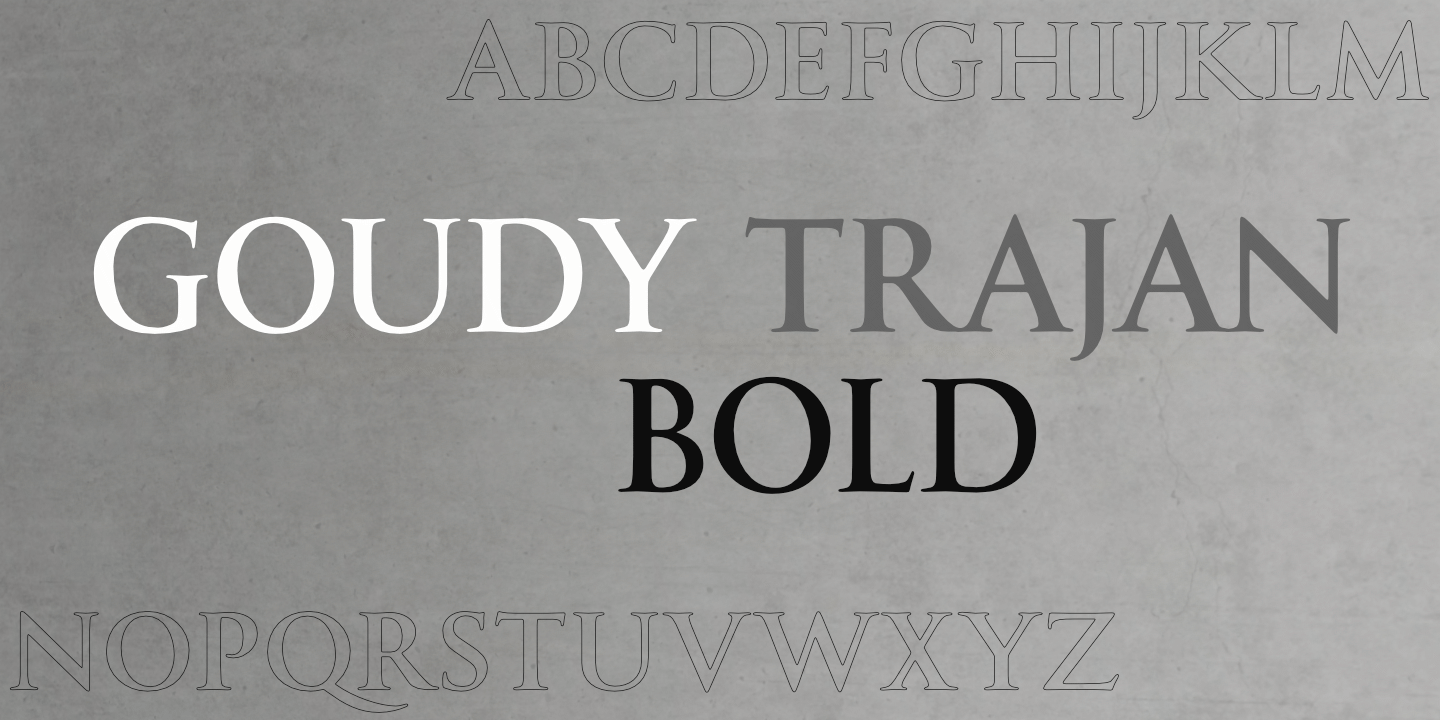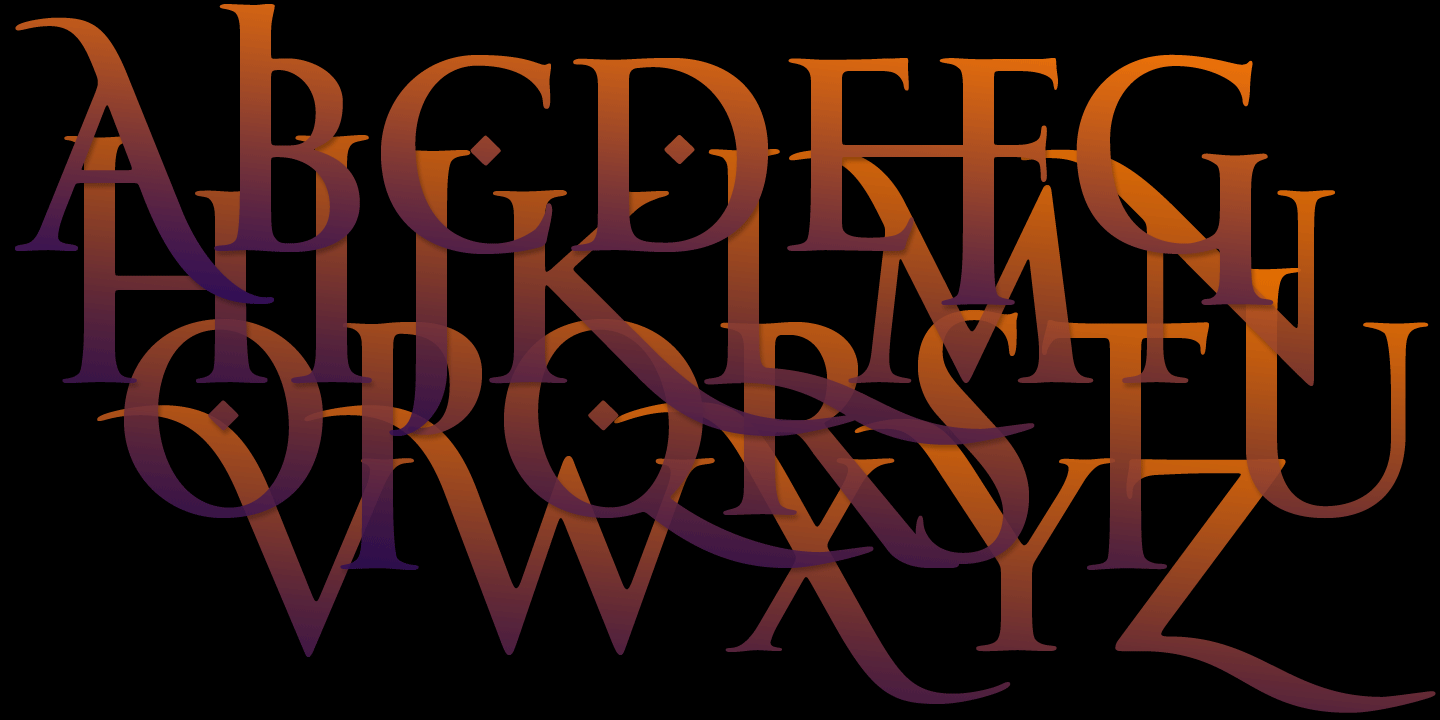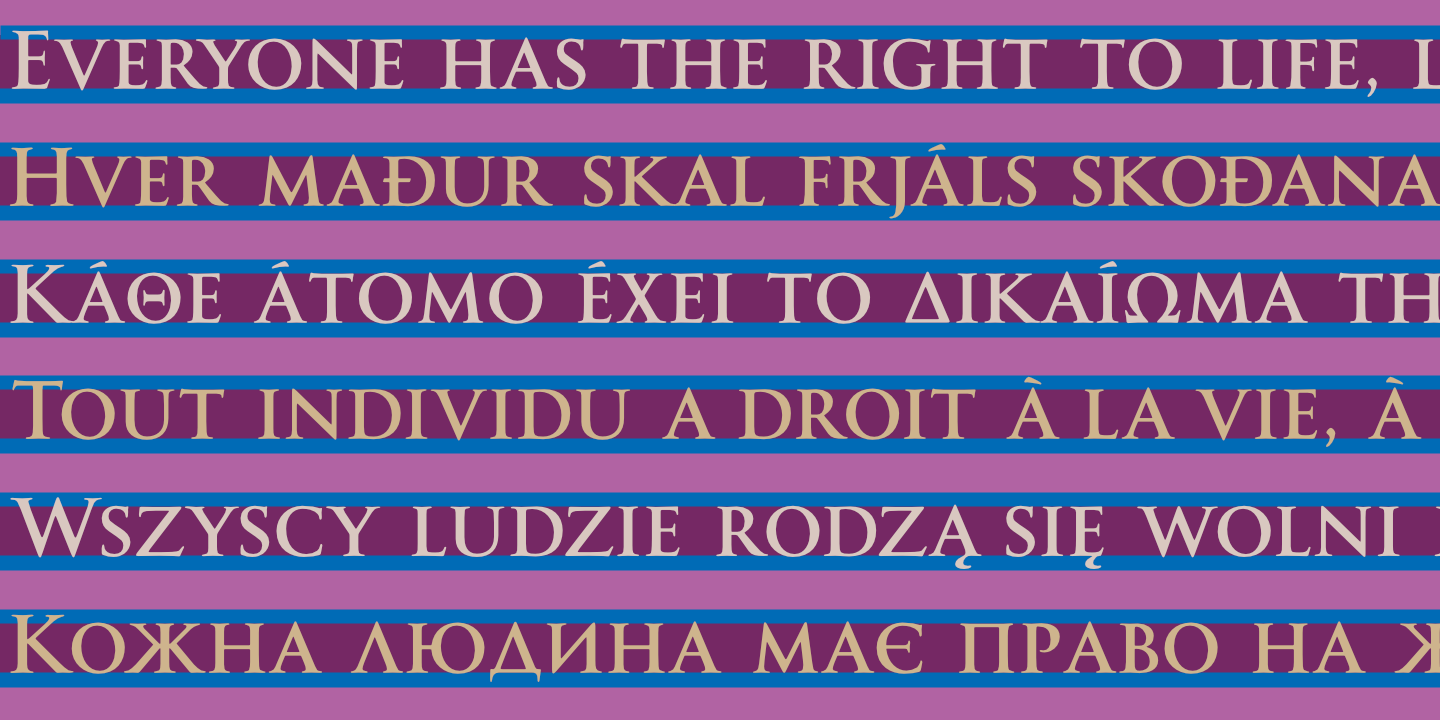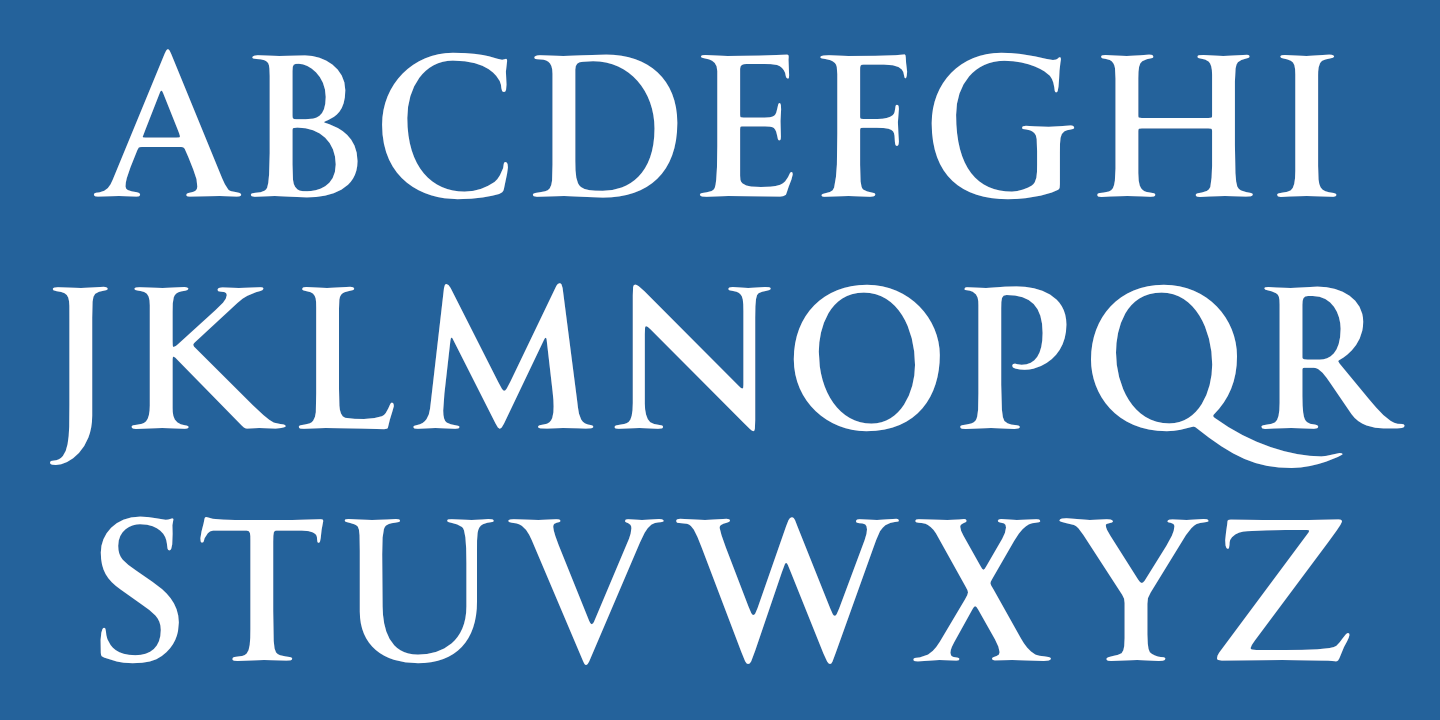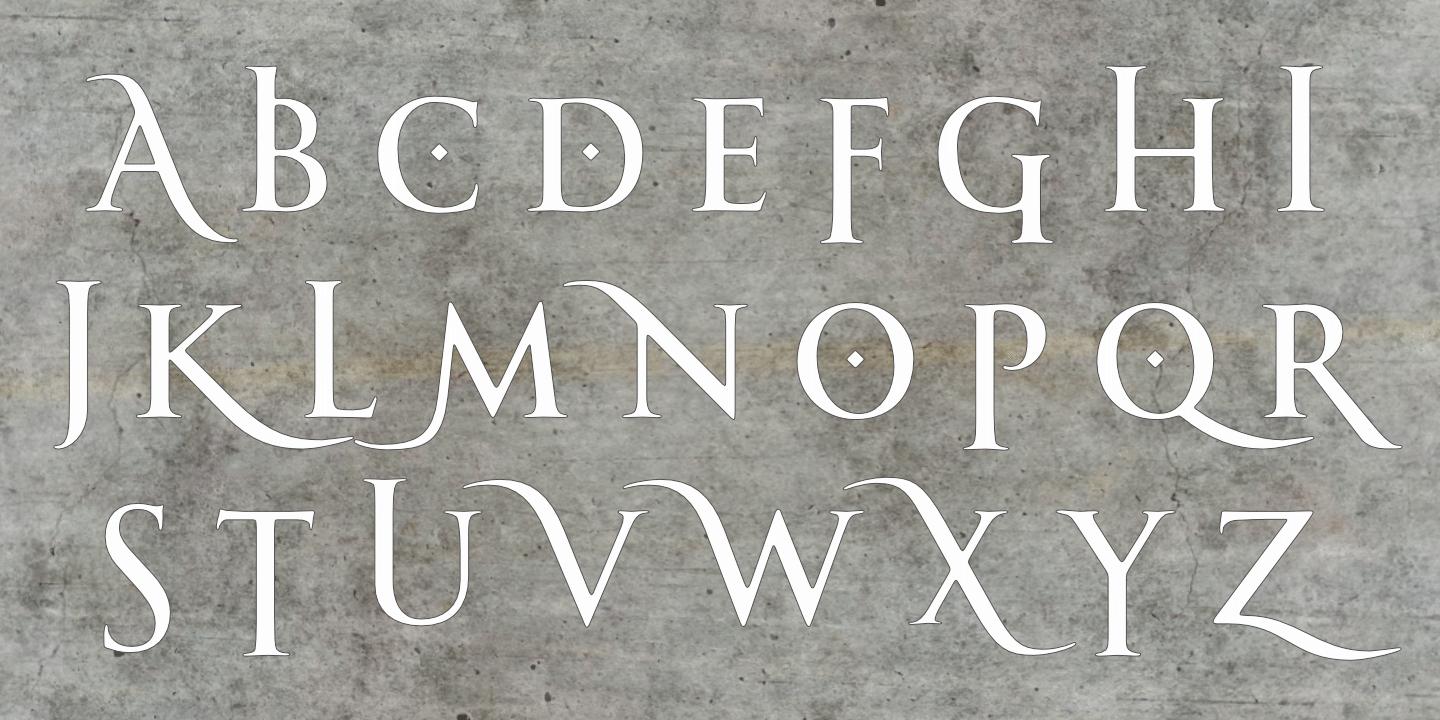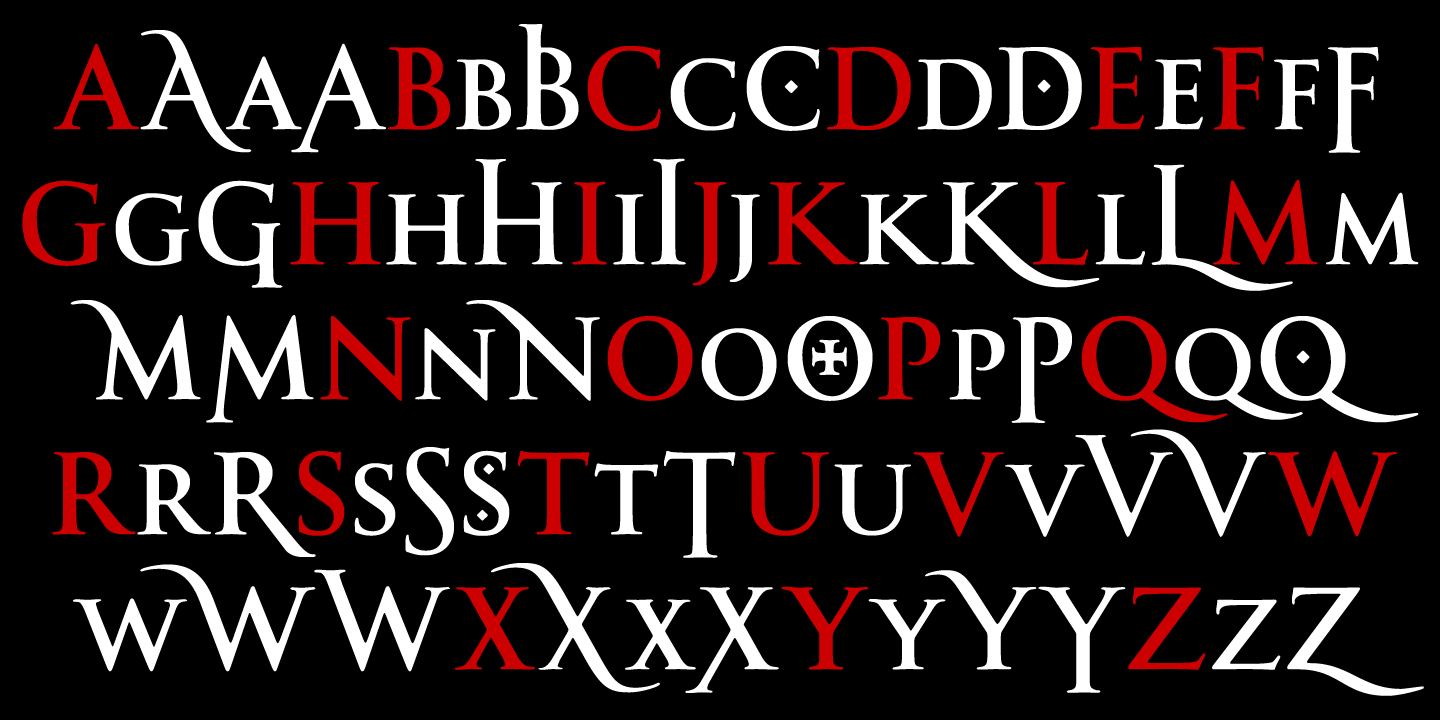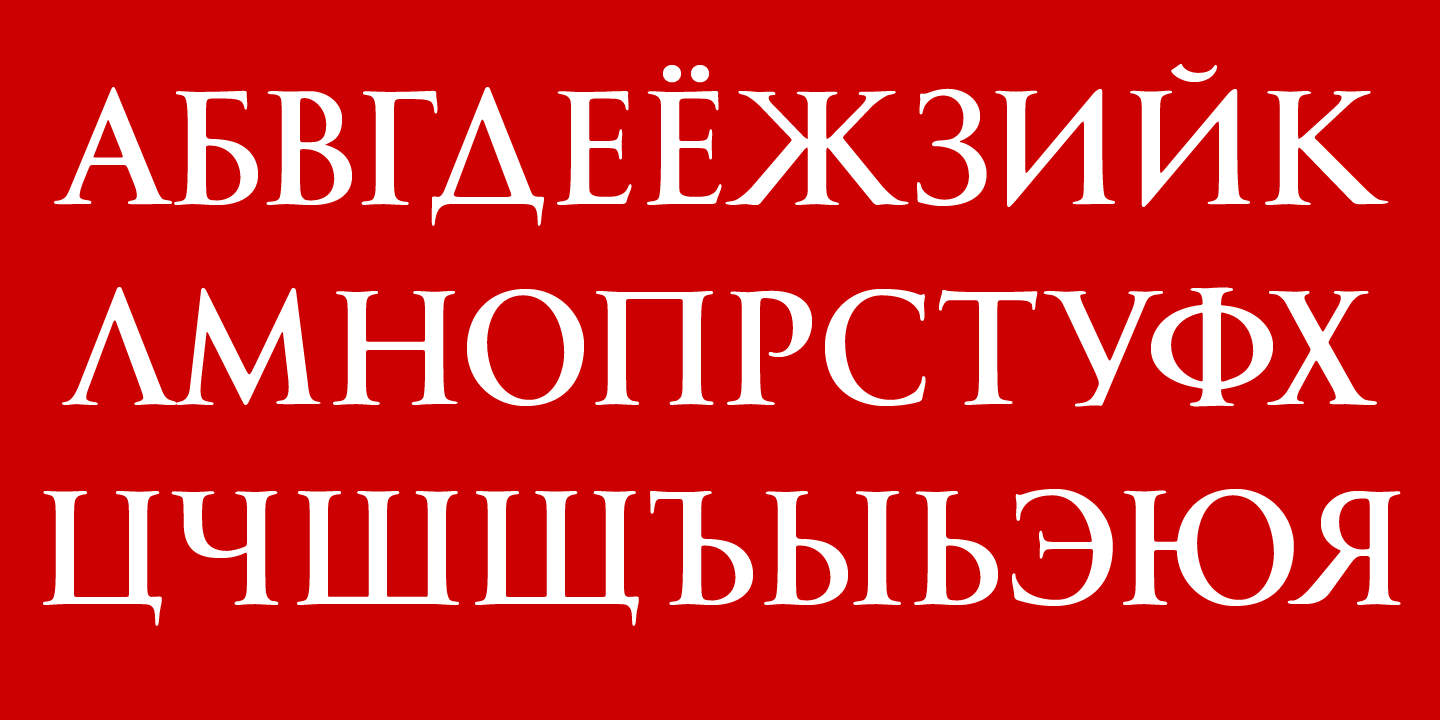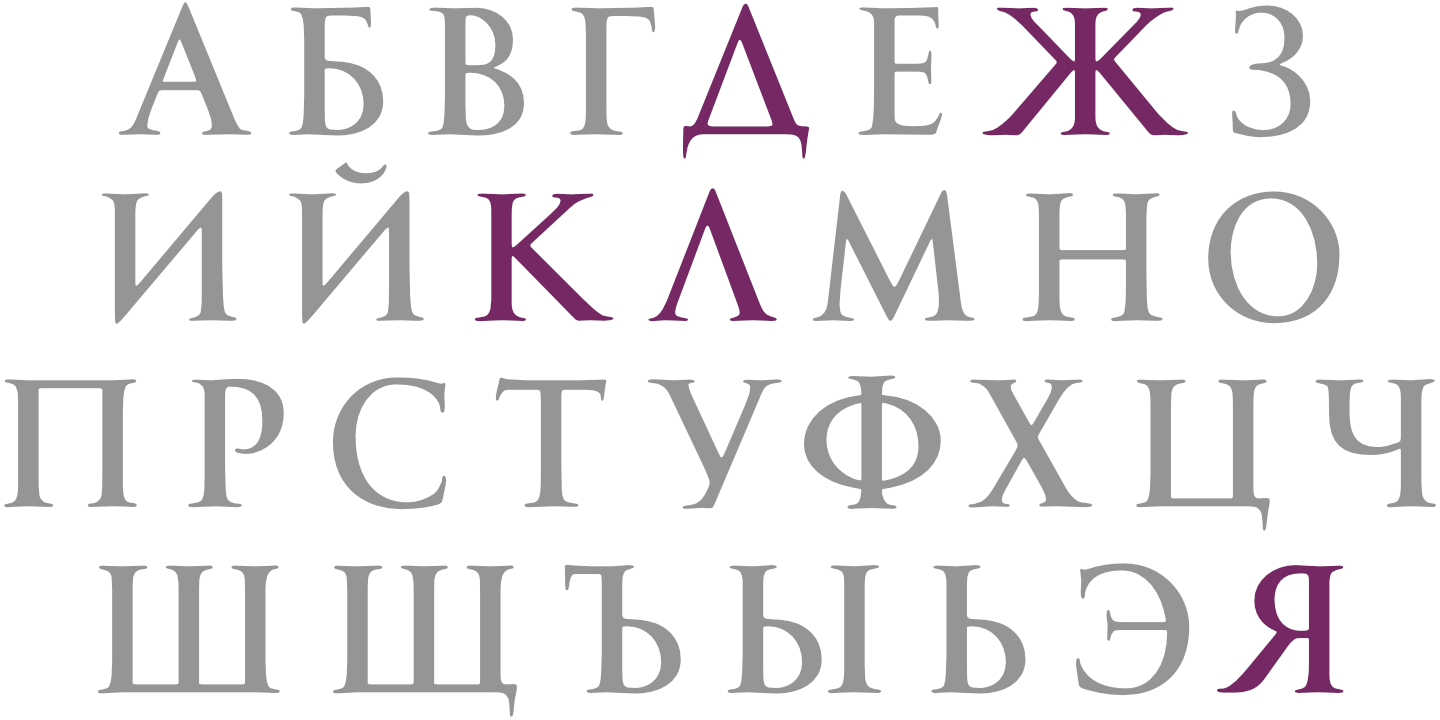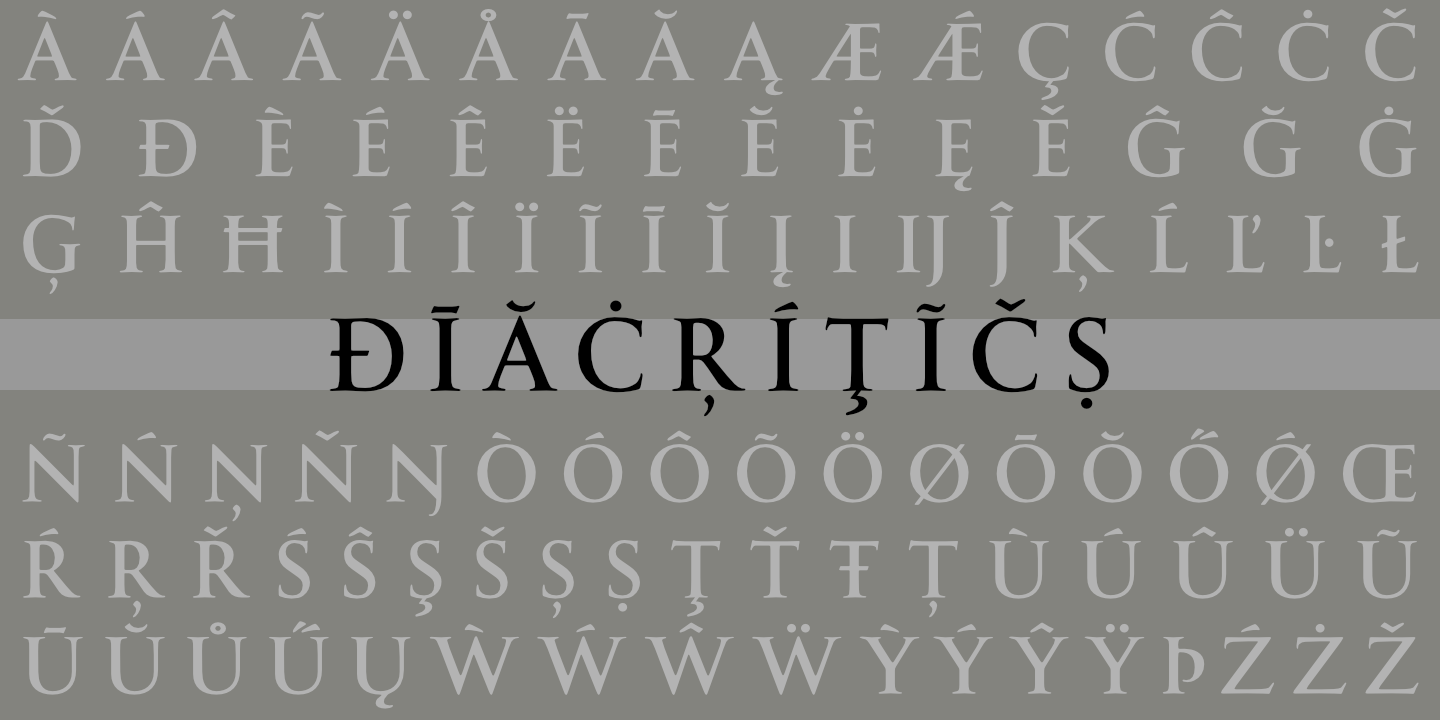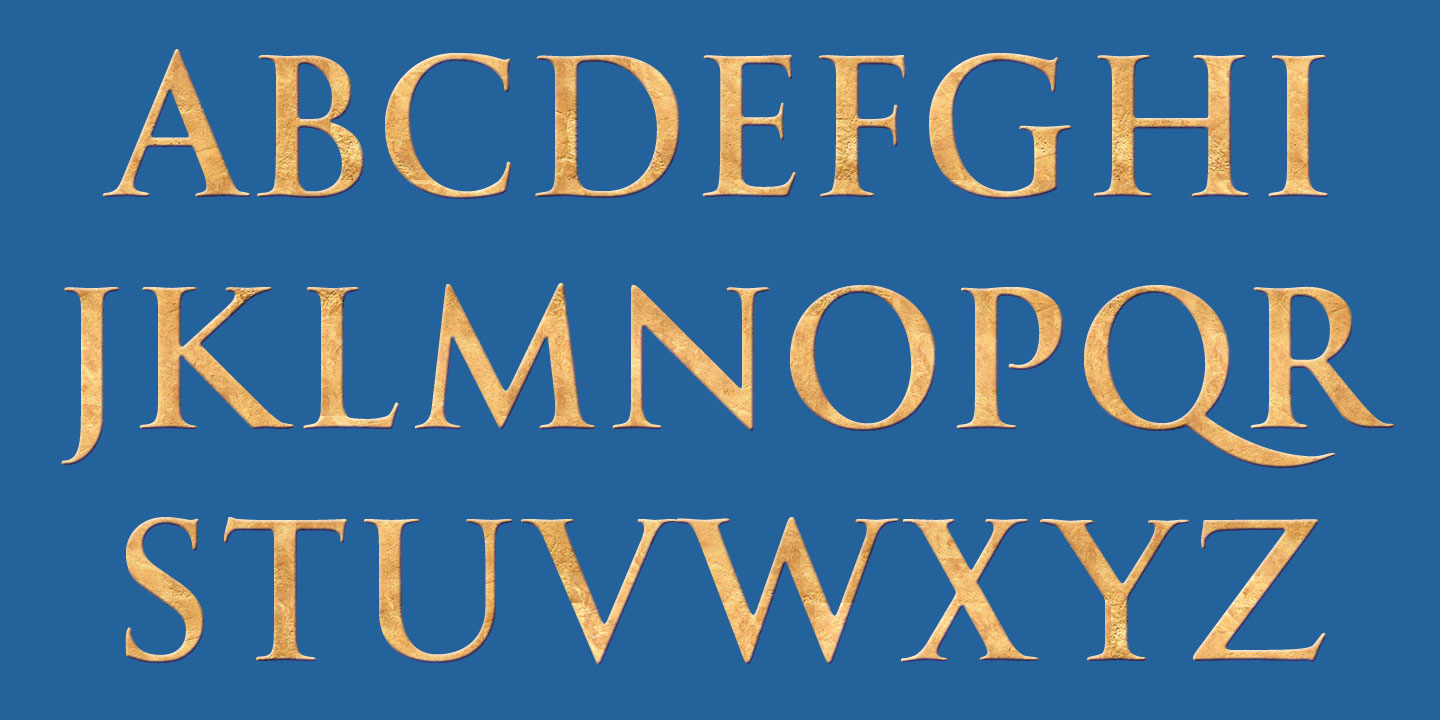
Latin Alphabet
Goudy Trajan Pro Bold: Default uppercase; small caps also included in lowercase position. See Glyphs for details. blank
Latin Alphabet - alternates
Alternates (small caps, swashes, etc.); default caps in red. Centered small caps not shown. See Glyphs for details. blank
Russian Alphabet
Goudy Trajan Pro Bold supports most languages that use the Cyrillic alphabet. See Glyphs for details. blank
Greek Alphabet
Goudy Trajan Pro Bold supports modern (monotonic) Greek. See Glyphs for details. blank
Goudy Trajan Pro Bold: Numerals, punctuation, currency symbols, and a small sample of fleurons.
Castle Fleurons
Goudy Trajan Bold includes over 150 vintage fleurons.
Goudy Trajan Pro Bold supports most European languages. See above and below.
Notice that light text on a dark background appears slightly heavier than dark text on a light background. blank
Diacritics
Psychology
Mission San Rafael
Alternates
Gradient
Poster Fontname